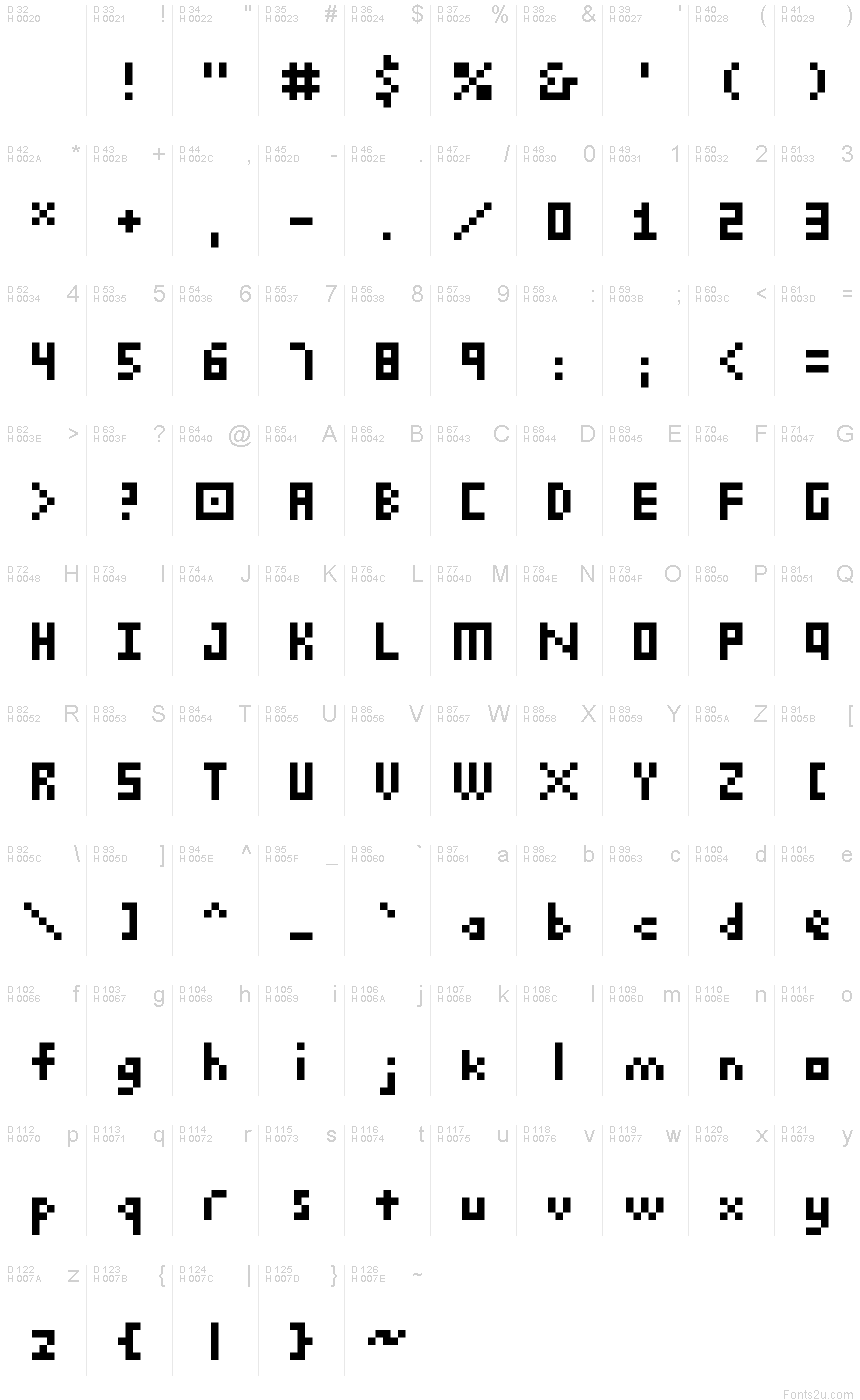
3by5 - mini pixel font; not monospaced. Regular Czcionka
3by5 by a1ber of FSI FontShop International GmbH is a free mini pixel font built from stark rectangular modules. Its tiny grid produces angular letters with abrupt steps, square gaps, and deliberately economical forms. The letters stay compact but do not share a fixed width.
Digital graphics are its clearest setting, especially game interfaces, retro web artwork, and electronic-style event posters that benefit from the low-resolution construction. It also suits merchandise for pixel-art fans and independent game audiences, where the lettering can read as part of the screen-based theme rather than a generic caption.